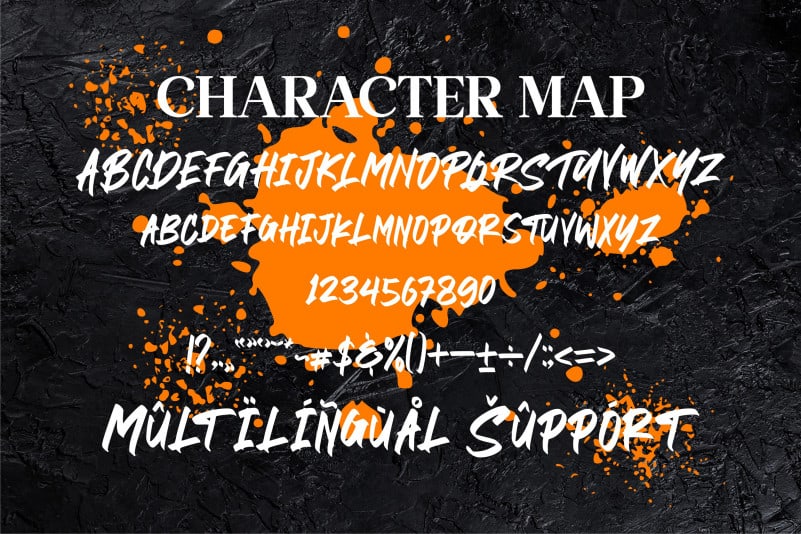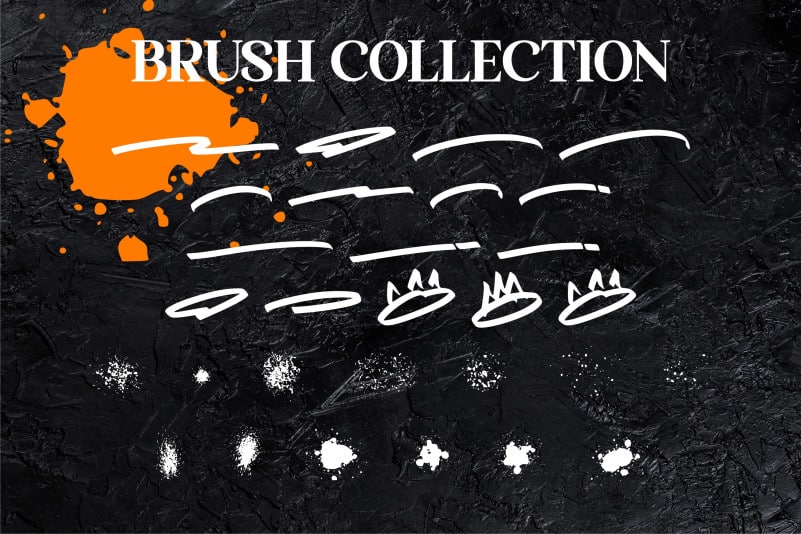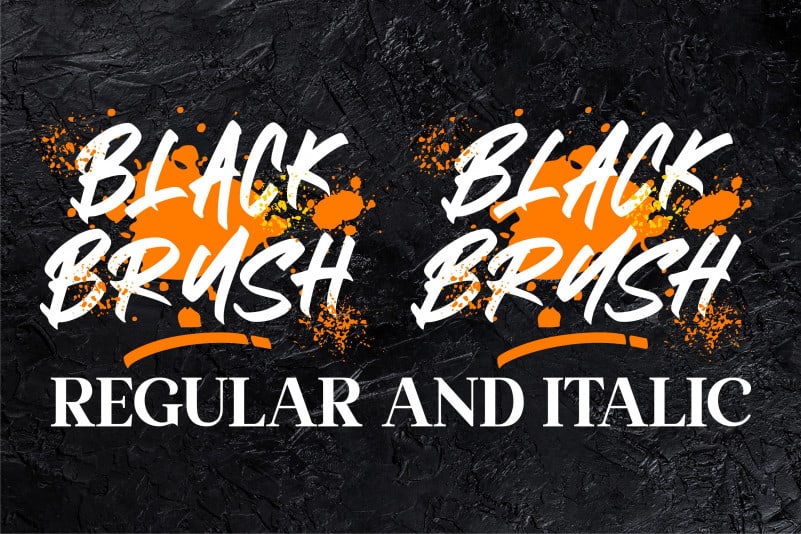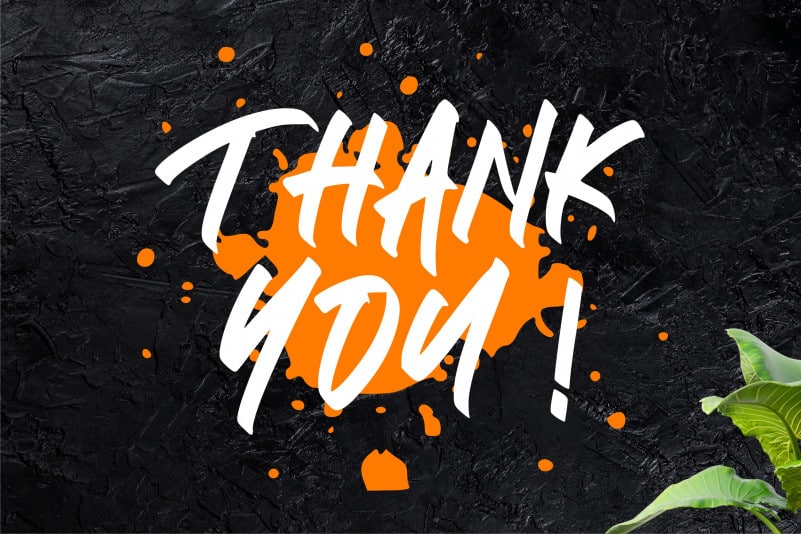
BLACK BRUSH Script Font
BLACK BRUSH Script Font, from Letterena, is a BRUSH font, suitable for any projects such as: logos, branding projects, homeware designs, product packaging, mugs, quotes, posters, shopping bags, t-shirts, book covers, name card, invitation cards, greeting cards, label, photography, watermark, special events, and all your other luxury projects that need a strong brush taste.